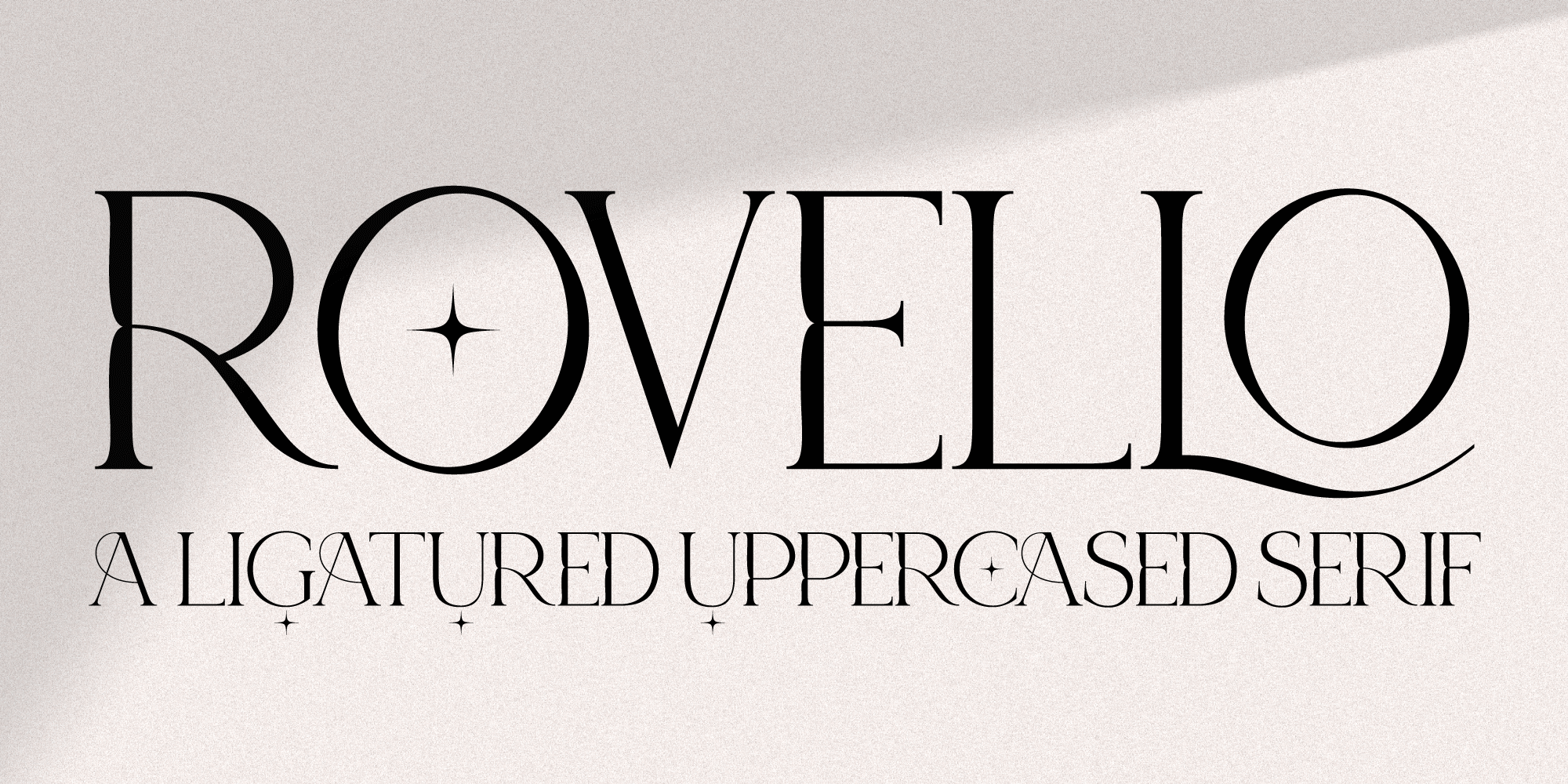
Rovello Serif Font is perfect for Italian heritage branding, traditional manuscript reproductions, classical literature publications, academic research journals, luxury cultural exhibitions, refined historical documentation, scholarly book publishing, prestigious educational materials, elegant museum signage, and sophisticated intellectual communications.
What makes Rovello Serif Font exciting is its scholarly elegance that perfectly captures the intellectual tradition and cultural refinement found in Italian Renaissance scholarship and classical academic excellence. This typeface features refined serif letterforms with Renaissance proportions and scholarly details that evoke the timeless wisdom and artistic sophistication of Italian humanist tradition. The font's intellectual personality and Renaissance authenticity make it ideal for educational institutions and cultural brands seeking to convey tradition, scholarly excellence, and the refined learning that comes from Italian academic heritage and classical scholarship traditions.
Rovello Serif Font family includes scholarly weight variations and Renaissance alternatives that enhance its intellectual appeal while providing design flexibility for academic and cultural applications. The font features classical ligatures, scholarly ornaments, and Renaissance character variations that create authentic academic atmosphere for educational and cultural branding.
Universities and cultural institutions consistently choose Rovello Serif Font Free Download for projects requiring authentic scholarly appeal and Renaissance credibility. The font's refined character excels in applications targeting academics, scholars, and cultural appreciators who value genuine intellectual tradition and classical learning excellence. Whether you're designing for academic publications, cultural museums, or scholarly institutions, this distinguished typeface delivers the Renaissance authenticity and scholarly elegance that resonates with audiences seeking genuine intellectual refinement and the classical wisdom that defines Italian Renaissance scholarship and academic excellence throughout European cultural history.